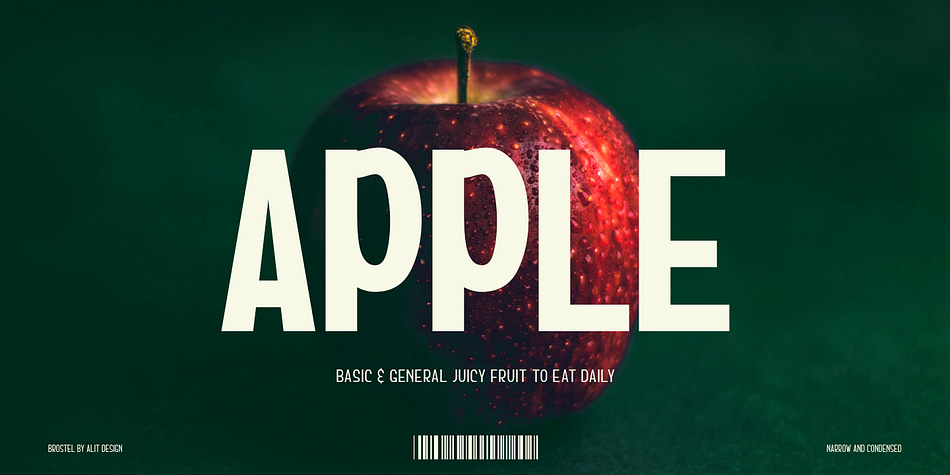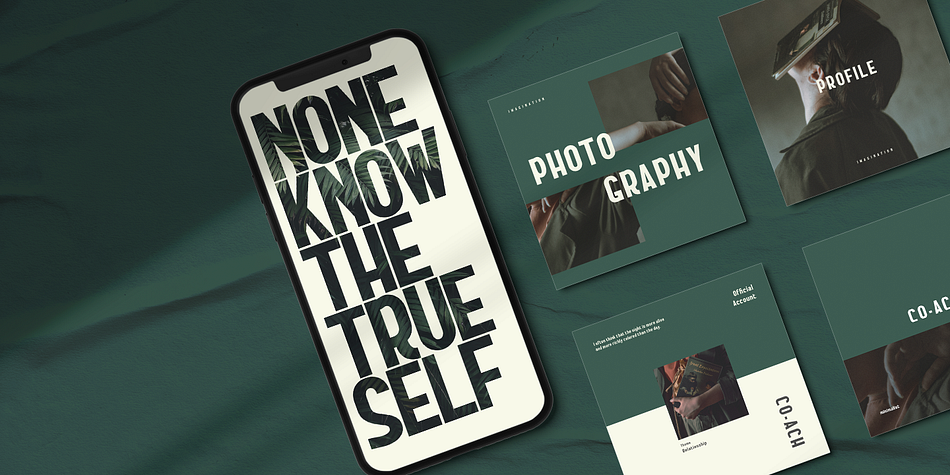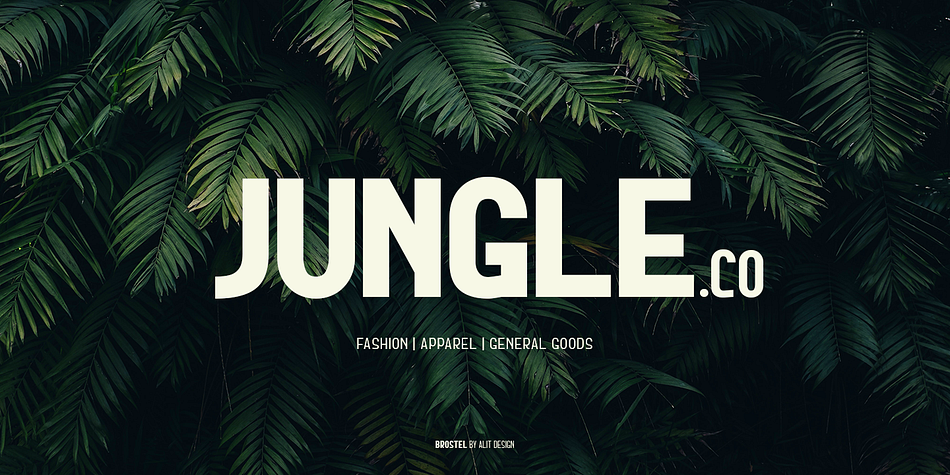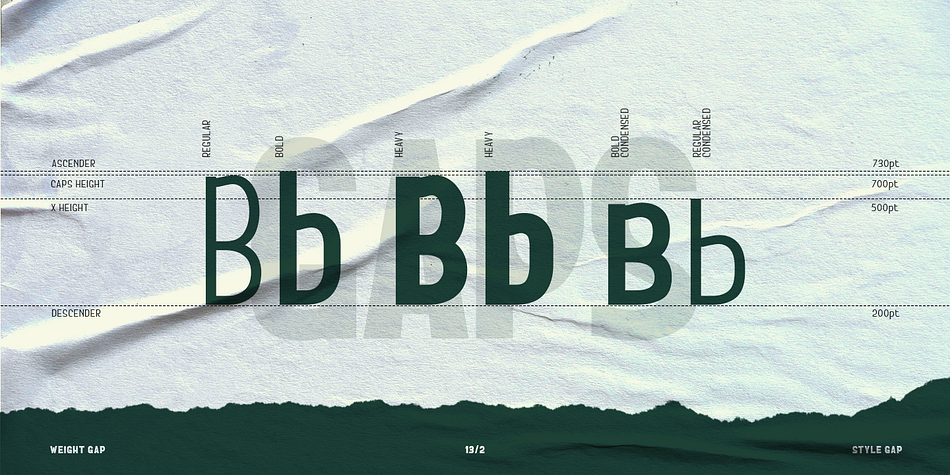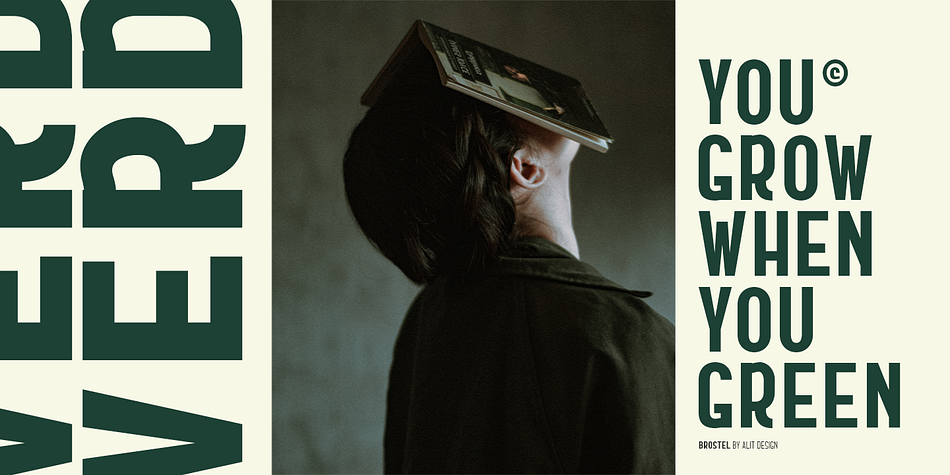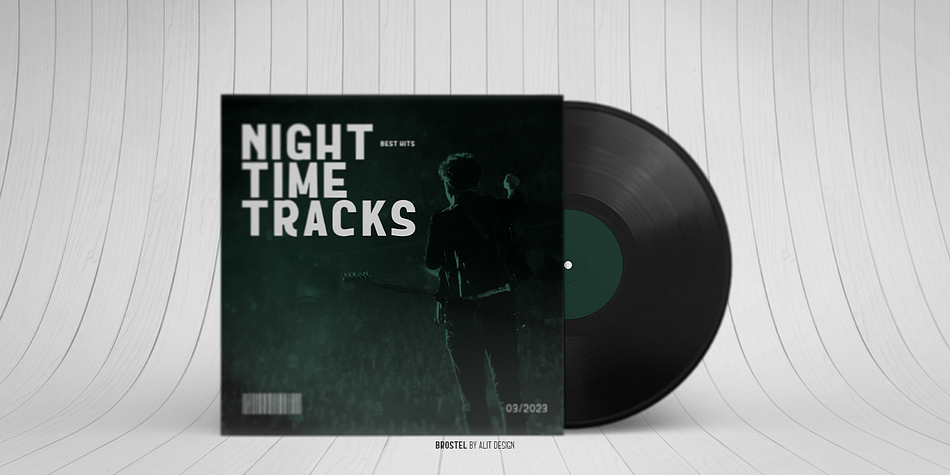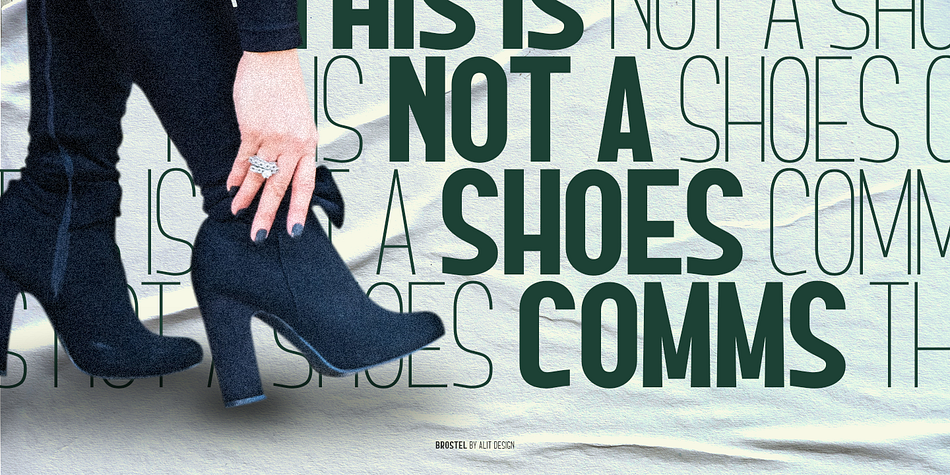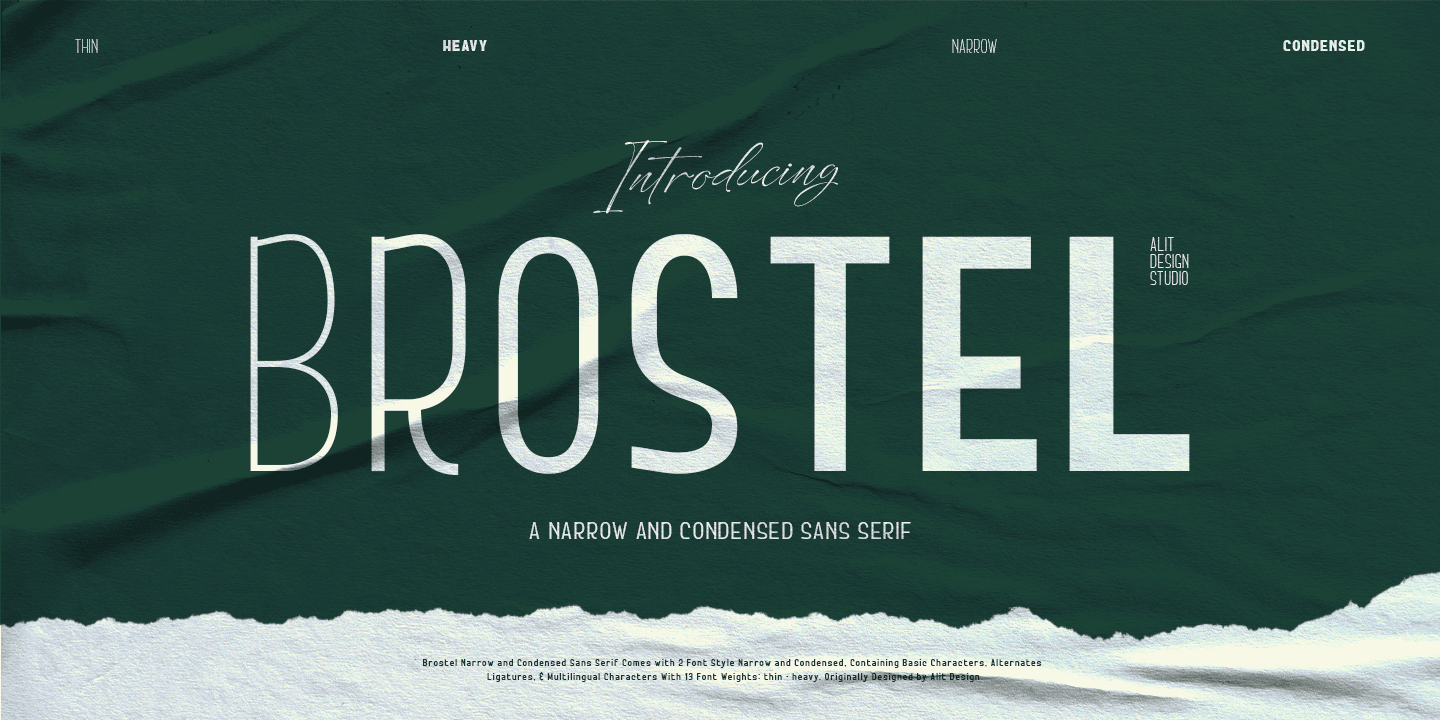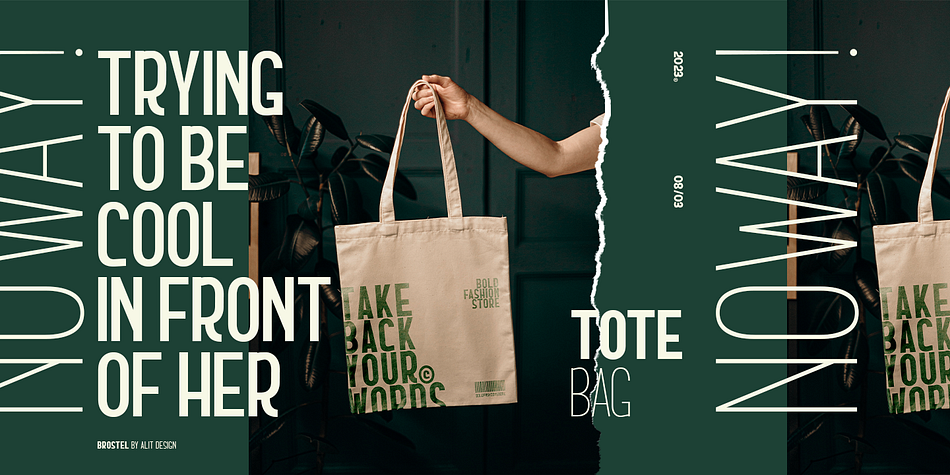
BROSTEL
Designed by Alit Suarnegara, BROSTEL is a display sans and sans serif font family. This typeface has twenty-six styles and was published by Alit Design.
“BROSTEL Typeface” is a modern sans serif font that comes in a variety of weights, ranging from Thin to Heavy. It has a high body, making it easy to read even in small sizes. The font includes 502 glyphs, which allow for a wide range of typographic possibilities.
In addition to the regular weight, “BROSTEL Typeface” also includes a condensed version, which is ideal for situations where space is limited. The font supports Private Use Area (PUA) encoding, allowing you to access special characters and symbols that are not available in standard character sets.
Overall, “BROSTEL Typeface” is a versatile font family that can be used in a variety of design contexts, from branding and advertising to editorial and web design. Its clean and modern aesthetic make it a popular choice for designers looking for a fresh and contemporary look.
Language Support : Latin, Basic, Western European, Central European, South European,Vietnamese.